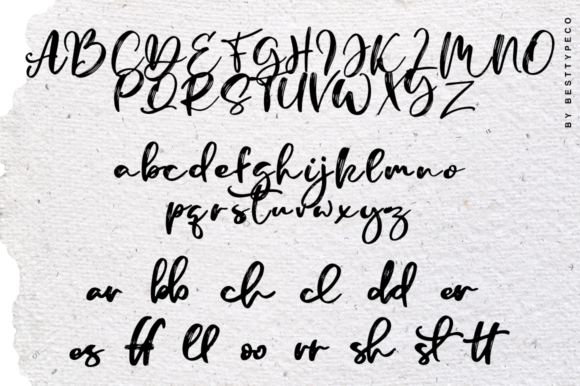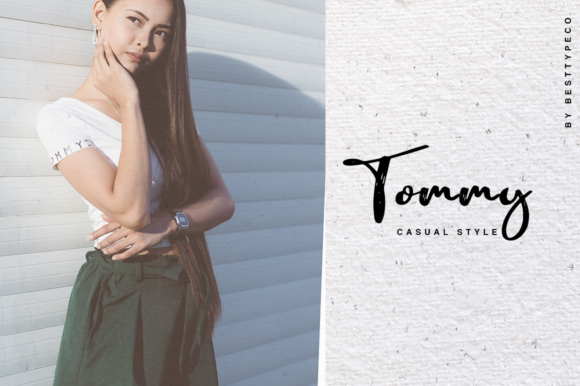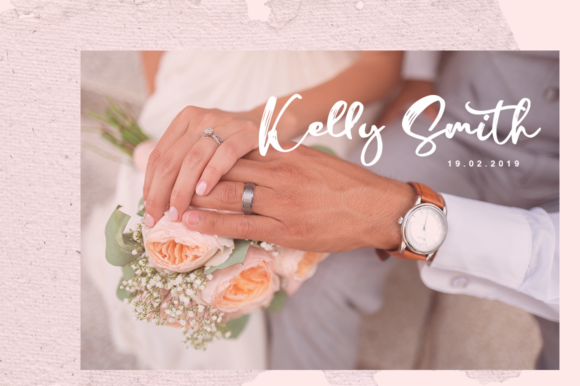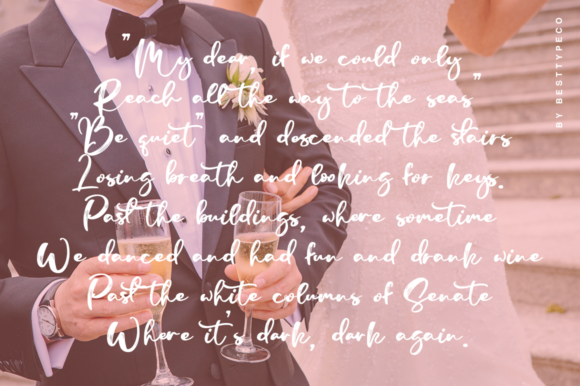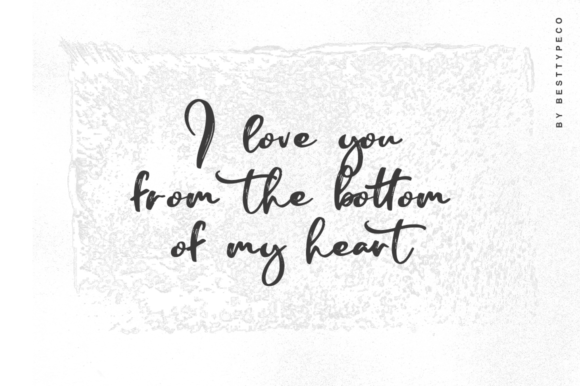
Soul City Font
About Soul City Font
The Soul City is a fresh handmade calligraphy font. It’s perfect for adding a natural touch to your greeting cards, branding materials, business cards, quotes, posters, and more!